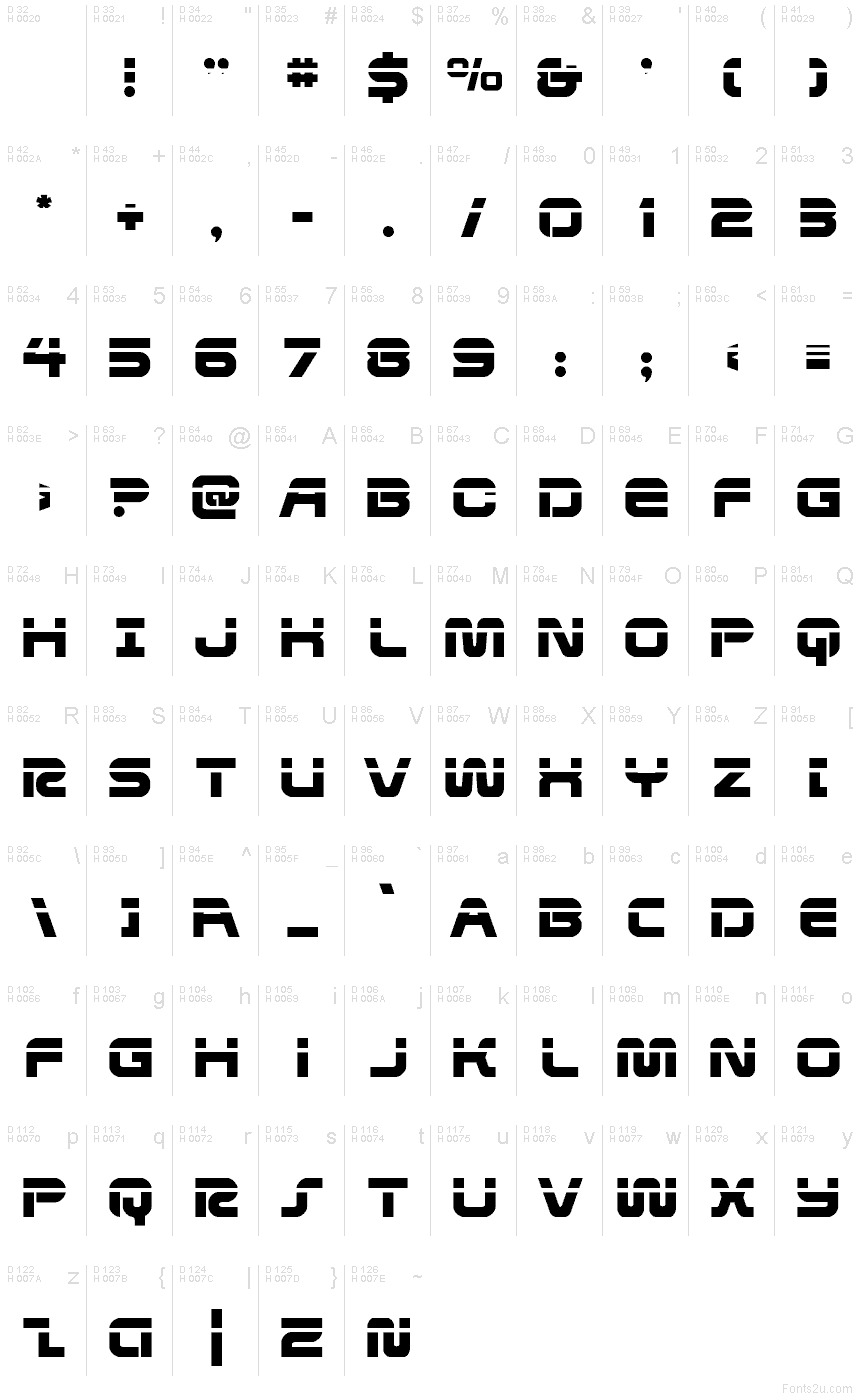
Rocket Command Laser
Rocket Command Laser font is a free futuristic display font by Iconian Fonts. The retro-futuristic style of this geometric typeface echoes the boldness of its design with expanded characters, clean lines, and a prominent mechanical essence. This expanded bold font immediately captures reader’s eyes thanks to its impressive symmetrical balance.
\nPlenty of futuristic designs can now be presented using this functional display font. Logos, digital products, signage design, printed posters and flyers are few examples. Finalize any video game cover or title with Rocket Command, or produce an outstanding commanding book cover for a horror/sci-fi novel!